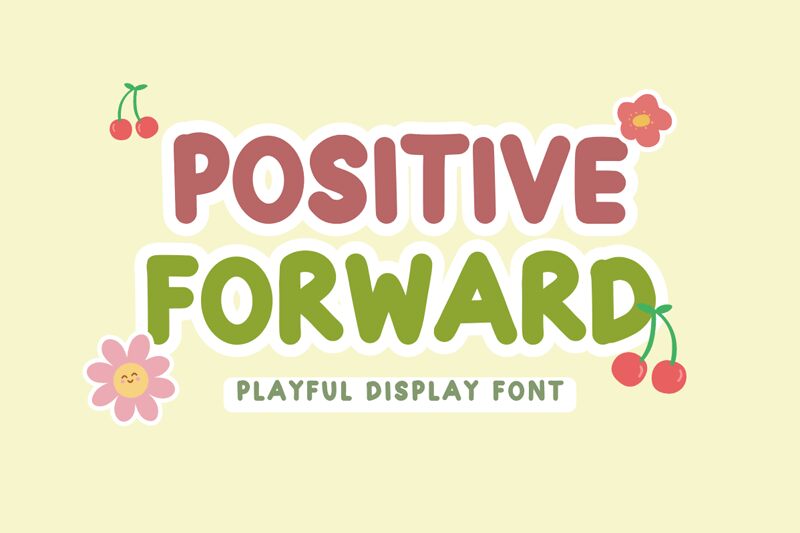
Positive Forward font, designed by Muhammad Afif, embodies a playful and energetic spirit. This bold display font captures the lively essence of comic styles, making it perfect for creative projects aiming to stand out with a sense of whimsy and fun. Its robust characters bring an eye-catching appeal that's ideal for posters, headlines, and children's book covers.